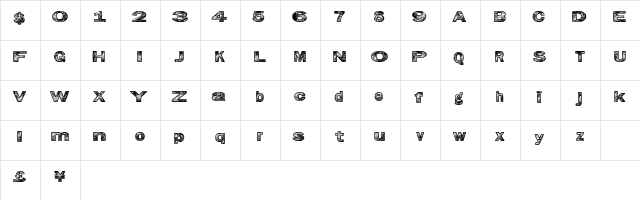
GrungeKids Regular
Design Context for GrungeKids Typeface
GrungeKids embraces imperfection — its rough, textured character adds raw authenticity to designs that want to feel lived-in and unconventional.
Suited to punk-influenced zines, underground music branding, streetwear, and raw, anti-corporate design.
Pro Tip: Pair GrungeKids with intentionally raw or lo-fi design elements. Fighting against it with overly polished surroundings will undermine its personality.